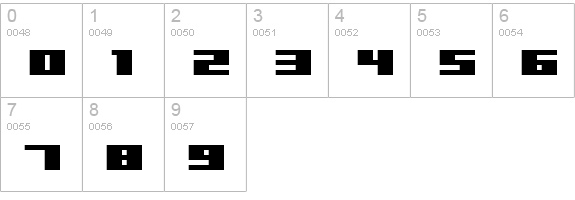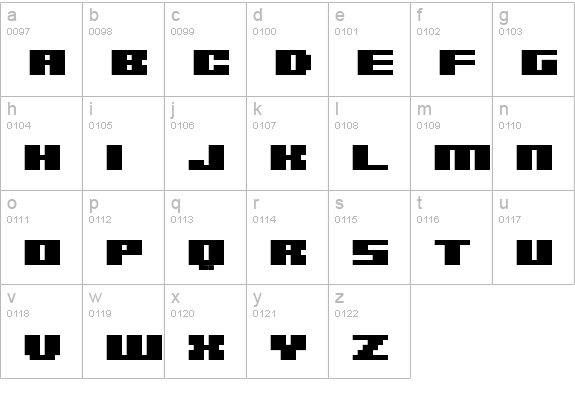
FFF Access Extended is a distinctive, extended-width variant in the FFF typeface family \xE2\x80\x94 well suited to design and typography projects.
The FFF Access Extended font is a versatile and modern typeface that exudes elegance and sophistication. With its sleek lines and clean design, this font is perfect for a wide range of design projects, from branding to editorial layouts. The extended version of FFF Access offers an extra touch of creativity and style, making it a stand-out choice for any designer looking to make a statement. What sets FFF Access Extended font apart is not only its impeccable design but also the fact that it is available for free download at FontsMarket.com. This means that you can access this high-quality font without any cost, making it a valuable resource for both professional designers and hobbyists alike. Don't miss out on the opportunity to elevate your designs with the FFF Access Extended font - download it for free today!